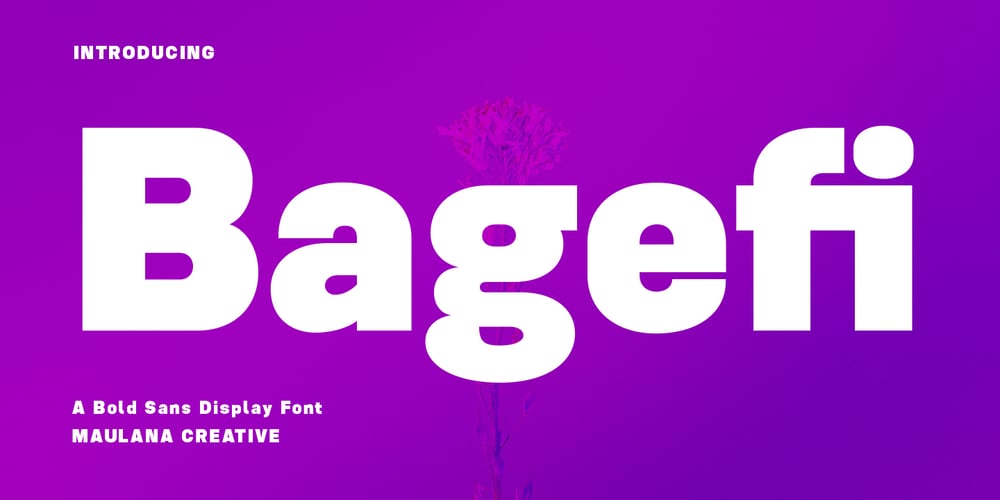
Bagefi Font Family was designed by Gilang Maulana and published by Maulana Creative. Bagefi contains 1 styles and family package options. Bagefi is a modern sans serif display font. With semi rectangle shape edge and bold stroke, fun character with a bit of ligatures. To give you an extra creative work. Bagefi font support multilingual more than 100+ language. This font is good for logo design, Social media, Movie Titles, Books Titles, a short text even a long text letter and good for your secondary text font with script or serif. Make a stunning work with Bagefi font. Cheers, Maulana Creative